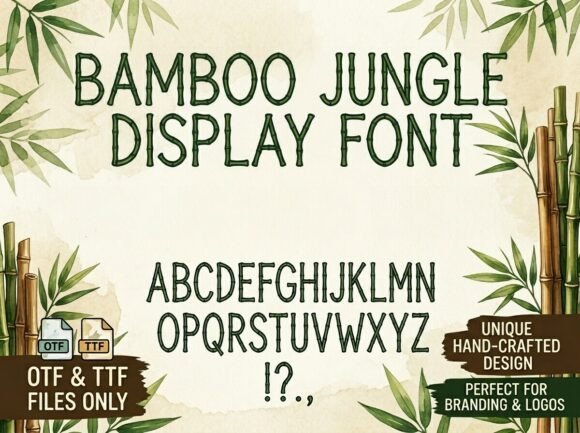
Get Lost in the Bamboo Jungle Font
Have you ever been surrounded by the soothing sounds of the rainforest, with the warm sun peeking through the lush green canopy above? That’s the exact feeling you’ll transport your audience to with the Bamboo Jungle Font. This stunning display font is designed to evoke the essence of a tropical paradise, perfect for designers looking to add a touch of eco-adventure to their projects.
Bamboo Jungle Font is a meticulously crafted typeface that features letterforms constructed from realistic bamboo stalks, complete with segmented nodes and organic textures. Whether you’re designing a tropical resort logo, a tiki bar sign, or a botanical garden brochure, this font is sure to bring the natural beauty of the rainforest to life. With its unique blend of modern style and organic charm, Bamboo Jungle Font is a valuable addition to any designer’s toolkit.
Bamboo Jungle Font Key Features
- Font Family: Bamboo Jungle Font is a unique, hand-drawn font family designed for use in various creative projects.
- Character Count: The font family includes over 200 characters, including uppercase and lowercase letters, numbers, and punctuation marks.
- Unique Characteristics: Bamboo Jungle Font features a hand-drawn, organic design with a natural, earthy feel, making it ideal for projects that require a unique, whimsical touch.
Bamboo Jungle Font Review
Overall, I think the Bamboo Jungle Font is a beautiful and unique addition to any design project. ✨ The combination of natural and whimsical elements makes it perfect for branding, logos, and even packaging design. The font’s intricate details and subtle textures add a touch of sophistication and elegance.
One of the things that I love about this font is its versatility. ✨ It can be used for both modern and vintage designs, and its wide range of weights and styles makes it easy to customize to suit any project. I also appreciate the font’s high-quality rendering, which ensures that it looks crisp and clear on both digital and print materials.
- ⚠️ The font may not be suitable for body text, as it can be quite ornate and may be difficult to read at small font sizes.
- ⚠️ The font’s complexity can make it challenging to pair with other fonts, so it’s essential to choose a suitable companion font to avoid visual overload.
Overall, I’m impressed with the Bamboo Jungle Font, and I would highly recommend it for any design project that requires a touch of natural elegance. With some careful planning and consideration, this font can add a unique and memorable element to any design.
Some tips for getting the most out of the Bamboo Jungle font include:
- Using it for tropical or nature-themed designs.
- Pairing it with bright, bold colors to create a fun and playful look.
- Using it for headings or titles to add a touch of whimsy.
Alternatives to Bamboo Jungle Font
Playfair Display is an elegant, high-end serif font suitable for luxury branding, high-end fashion, and sophisticated designs. It features a unique combination of geometric and ornate elements, making it perfect for creating a sense of opulence and refinement. Compared to Bamboo Jungle Font, Playfair Display has a more classic and sophisticated look, while Bamboo Jungle Font has a more natural and earthy feel.
Great Vibes is a beautiful, handwritten font ideal for creating a friendly, approachable, and creative atmosphere. It features a unique blend of cursive and script elements, making it perfect for titles, headings, and short paragraphs. Compared to Bamboo Jungle Font, Great Vibes has a more relaxed and casual look, while Bamboo Jungle Font has a more exotic and adventurous feel.
Lato is a clean, modern sans-serif font suitable for a wide range of designs, from corporate branding to digital products. It features a geometric and minimalist design, making it perfect for creating a sense of simplicity and clarity. Compared to Bamboo Jungle Font, Lato has a more industrial and technical look, while Bamboo Jungle Font has a more natural and organic feel.
Q: Is the Bamboo Jungle Font suitable for small font sizes?
Yes, the Bamboo Jungle Font is designed to be legible at various font sizes, including small sizes. However, as with any font, it’s essential to test the font at different sizes to ensure it meets your design requirements. The font’s x-height and stroke width are optimized for readability, making it suitable for small font sizes.